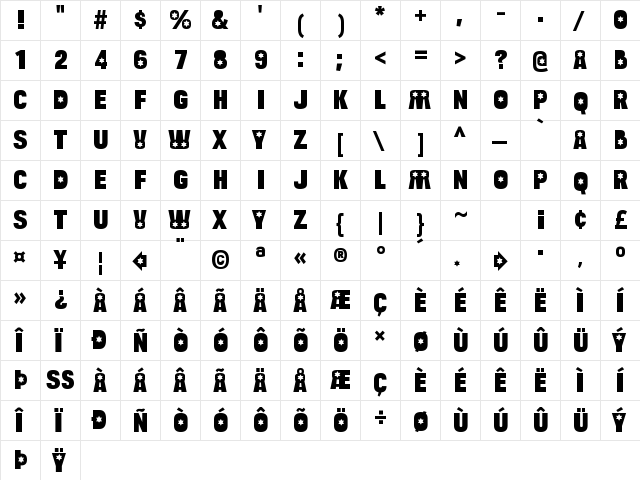
Bulltoad Shalom Regular
Design Context for Bulltoad Shalom Typeface
Bulltoad Shalom is a composed and adaptable typeface that performs quietly and consistently across a wide range of design contexts.